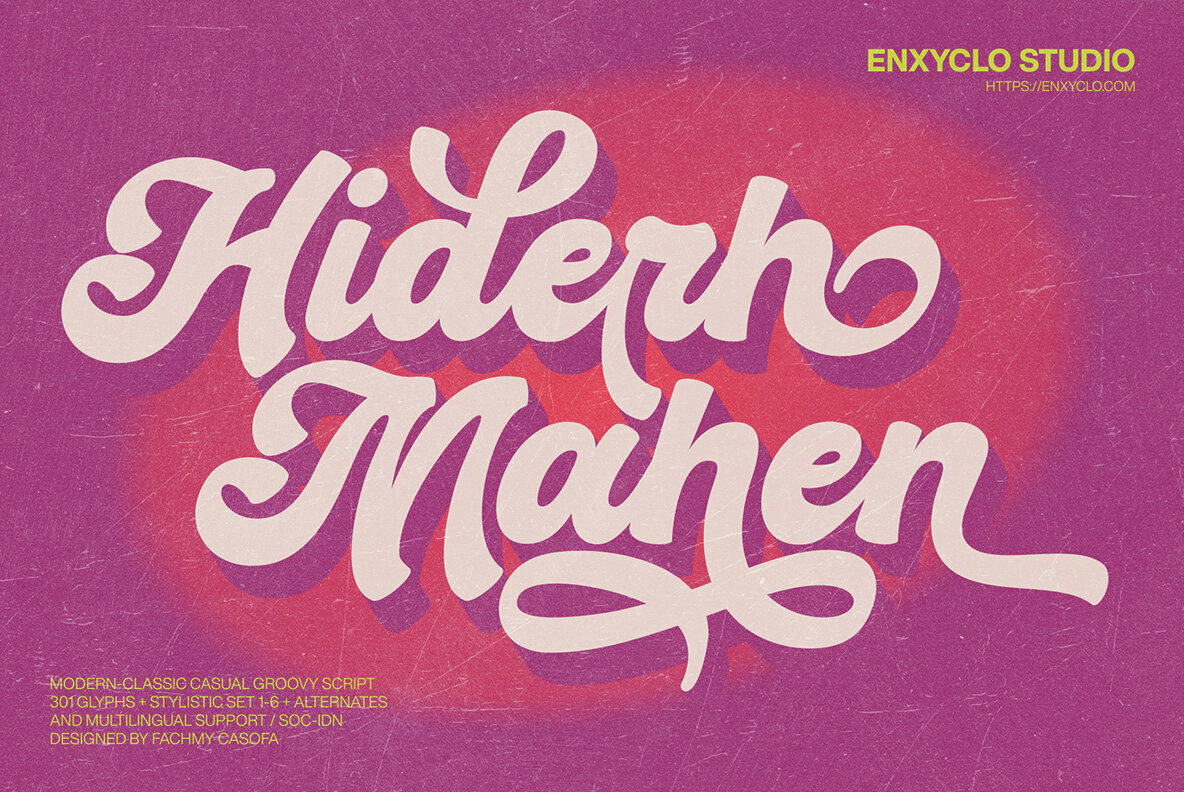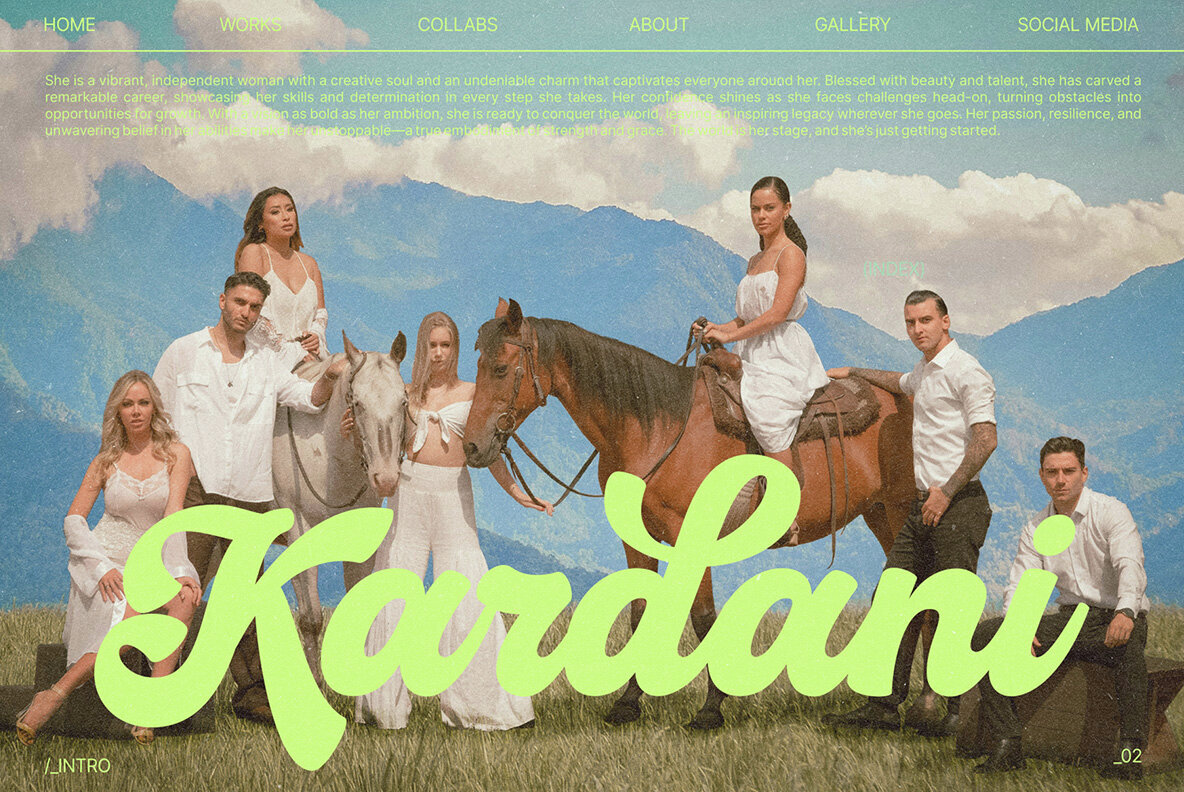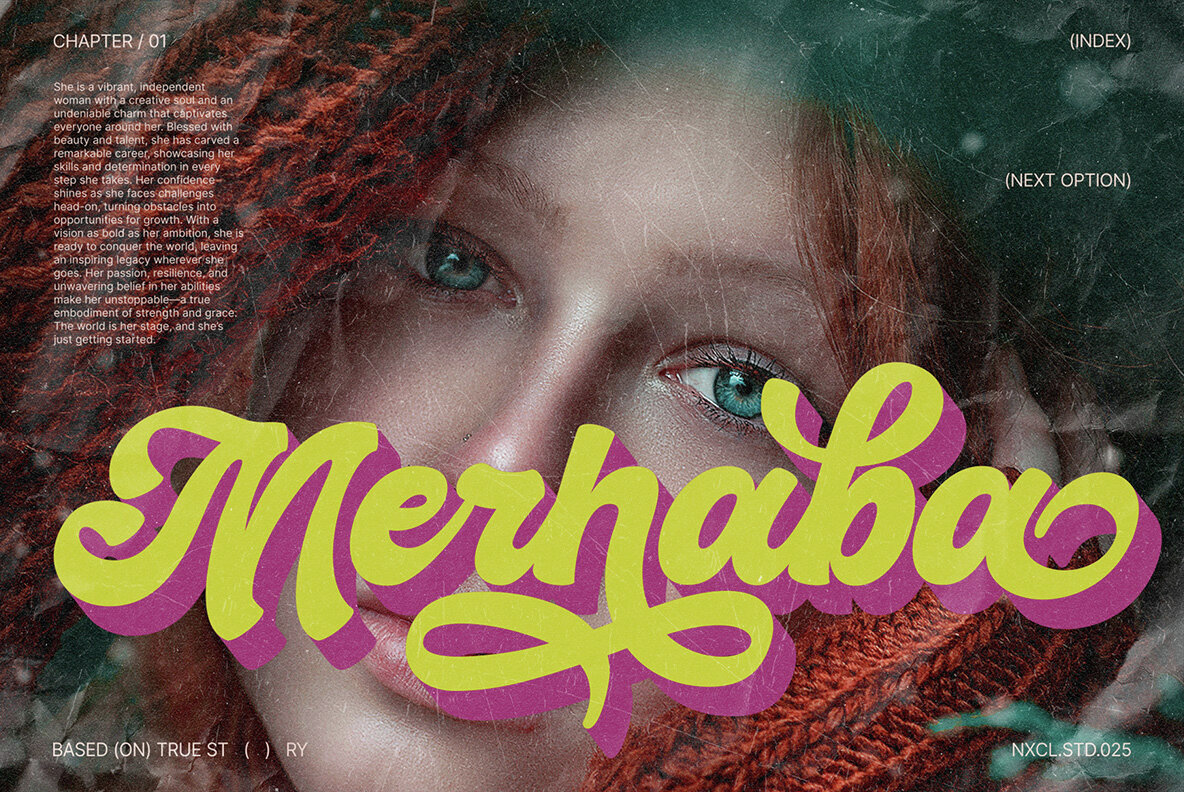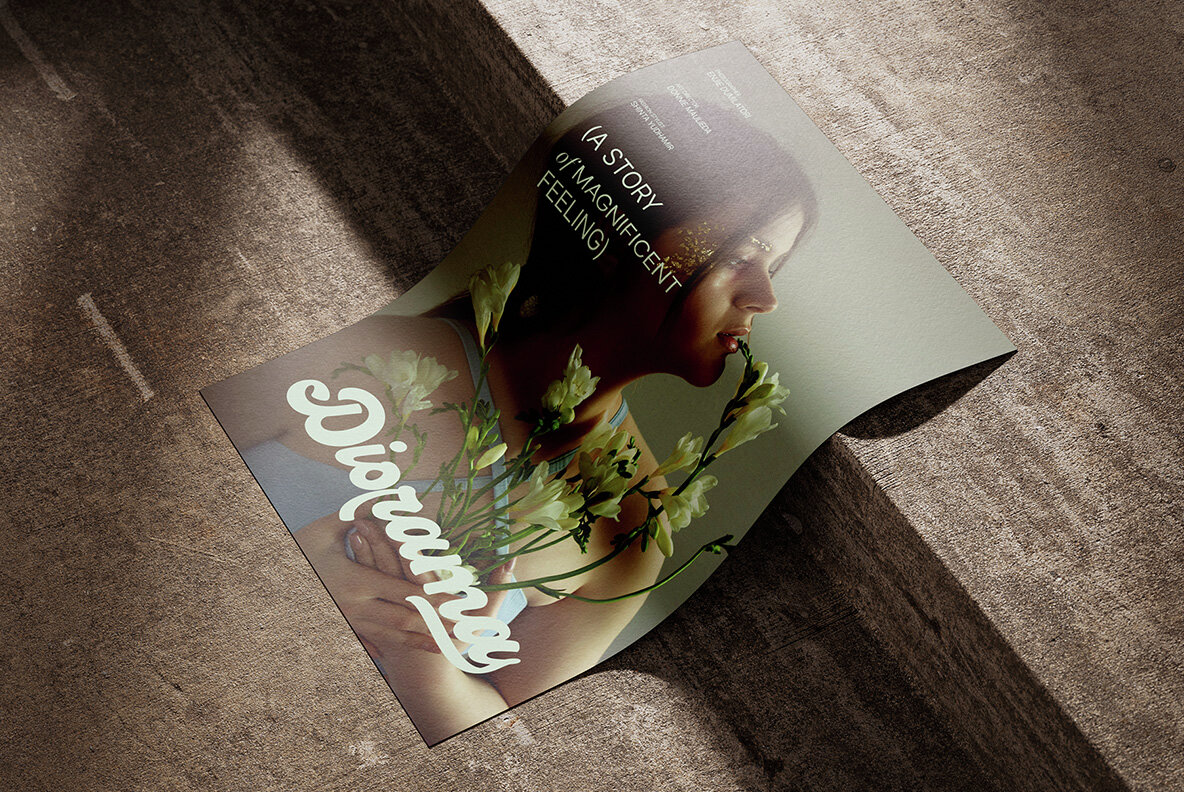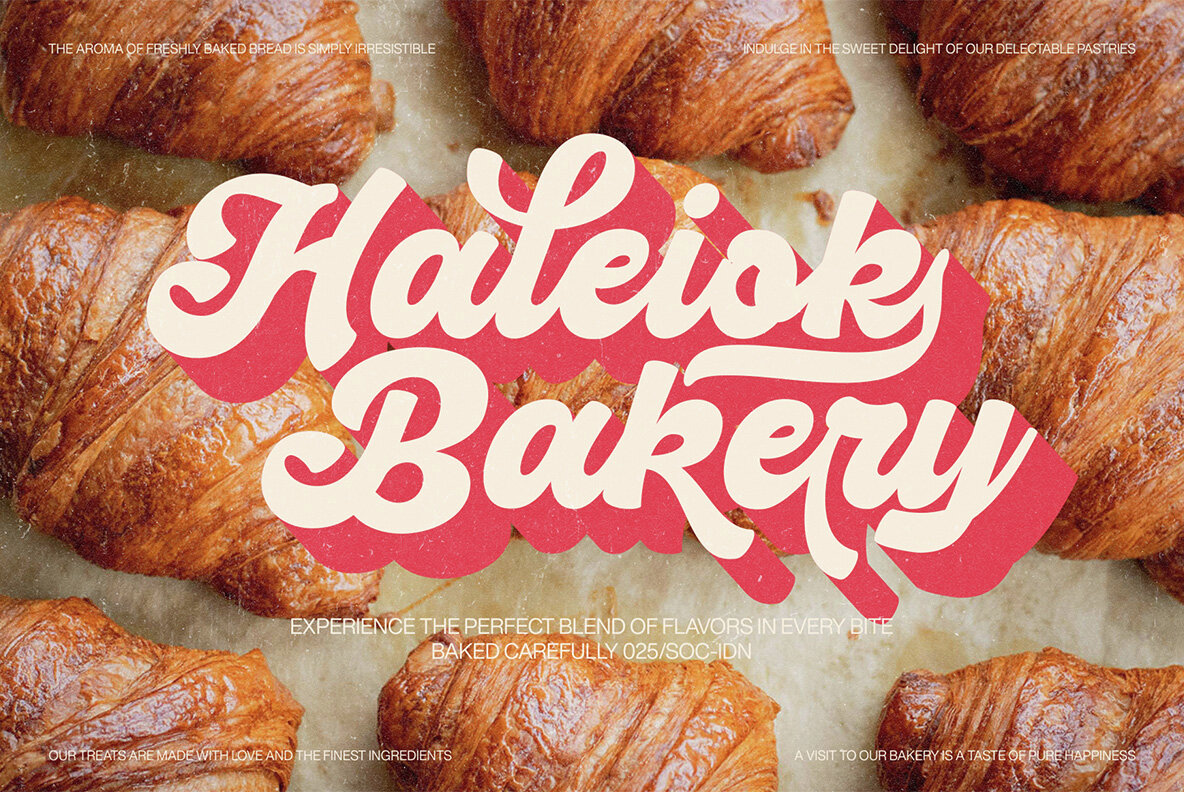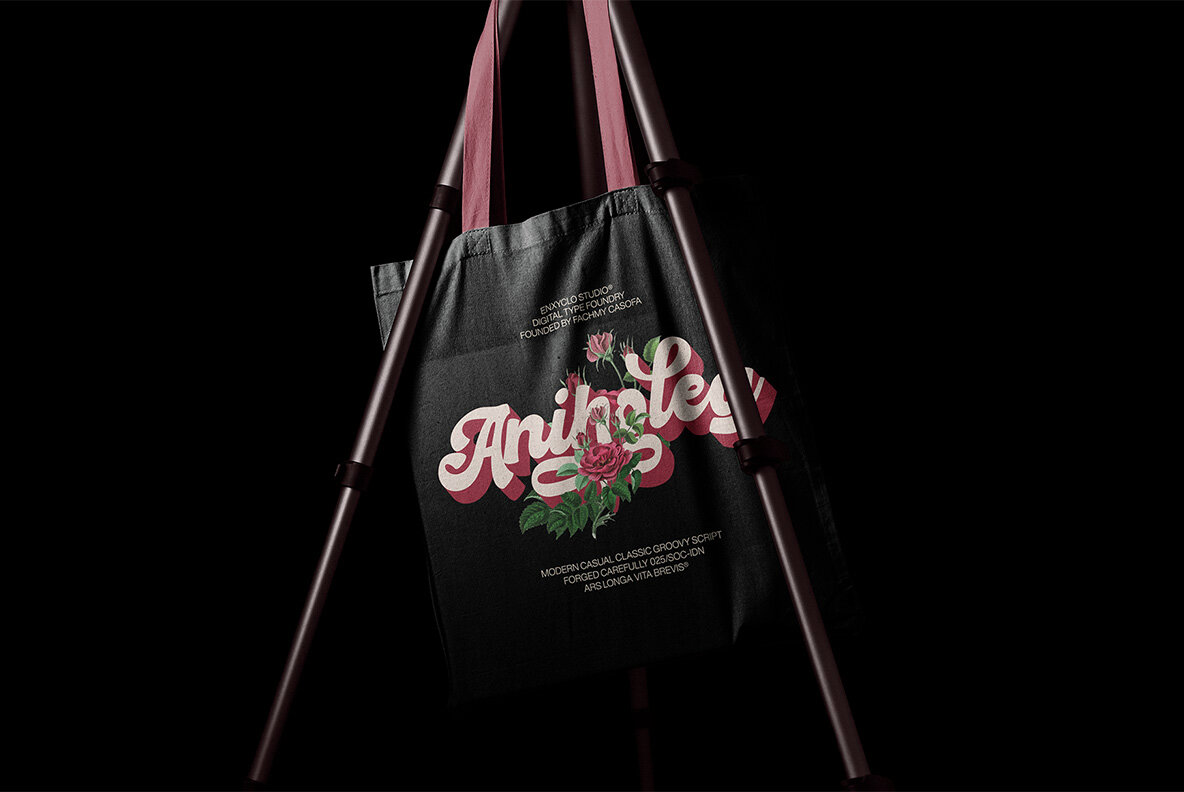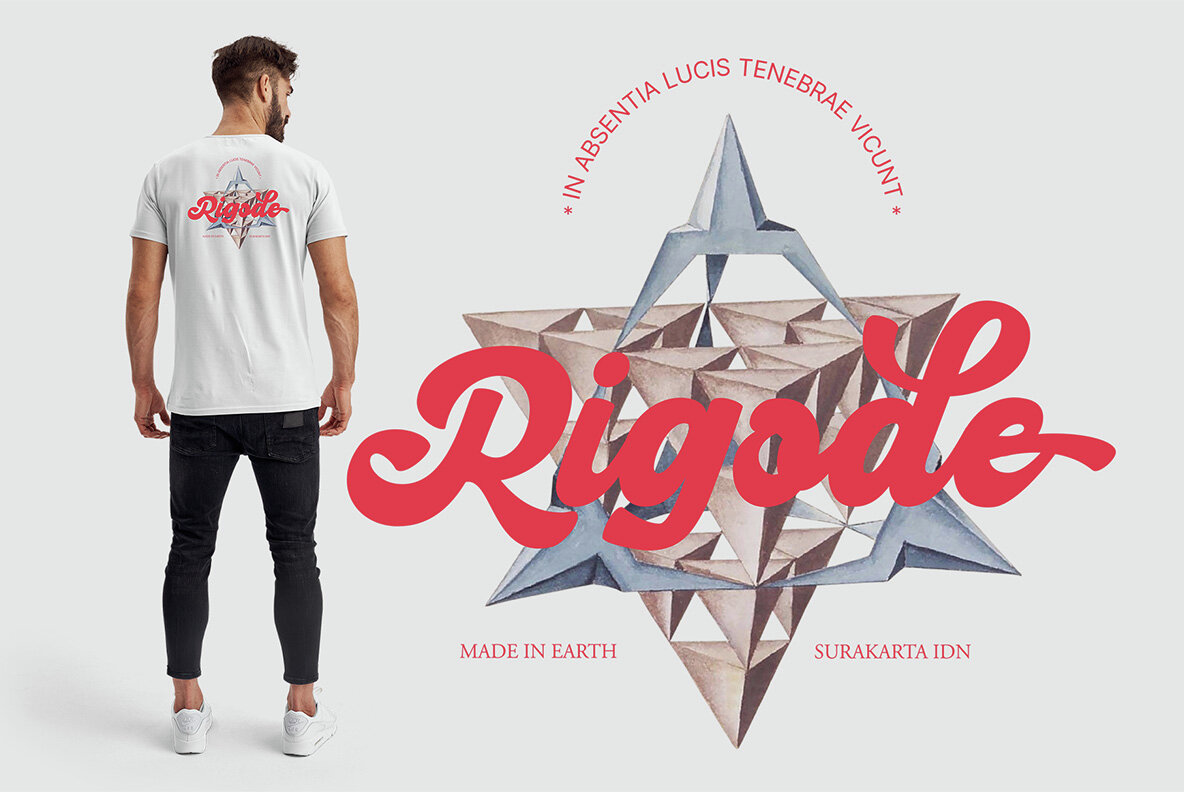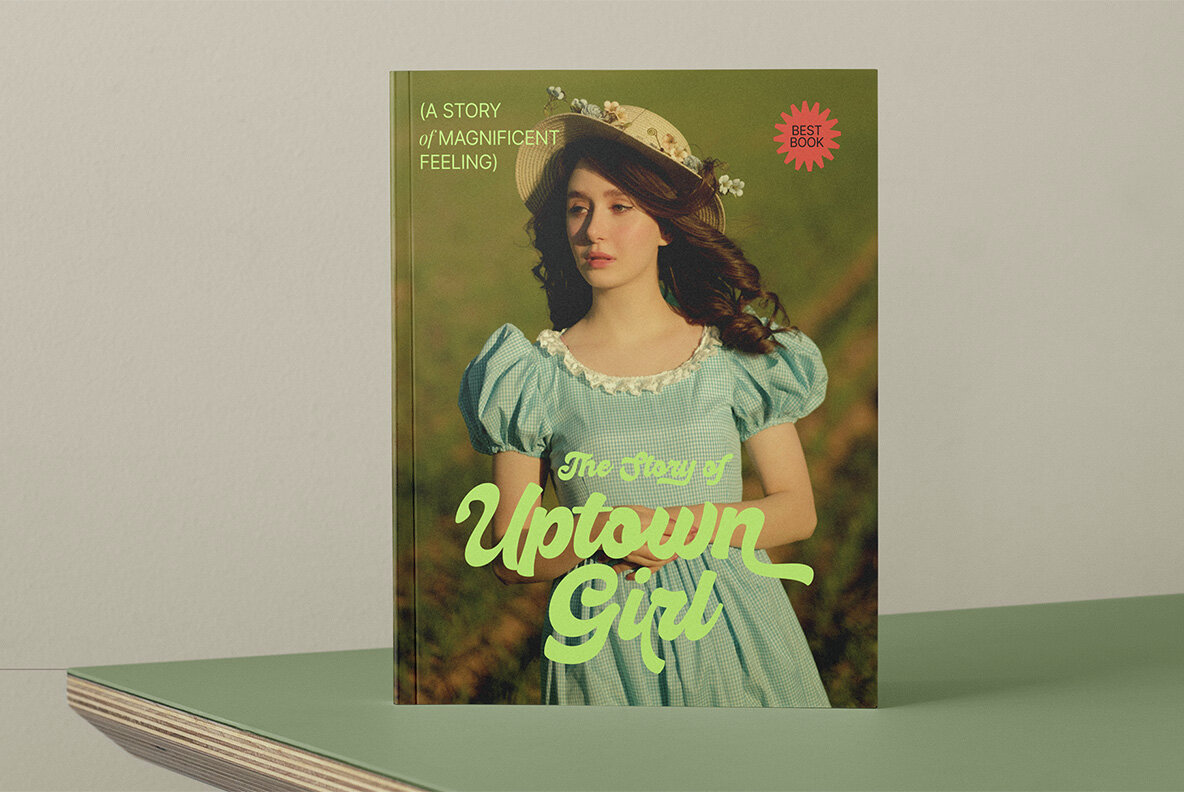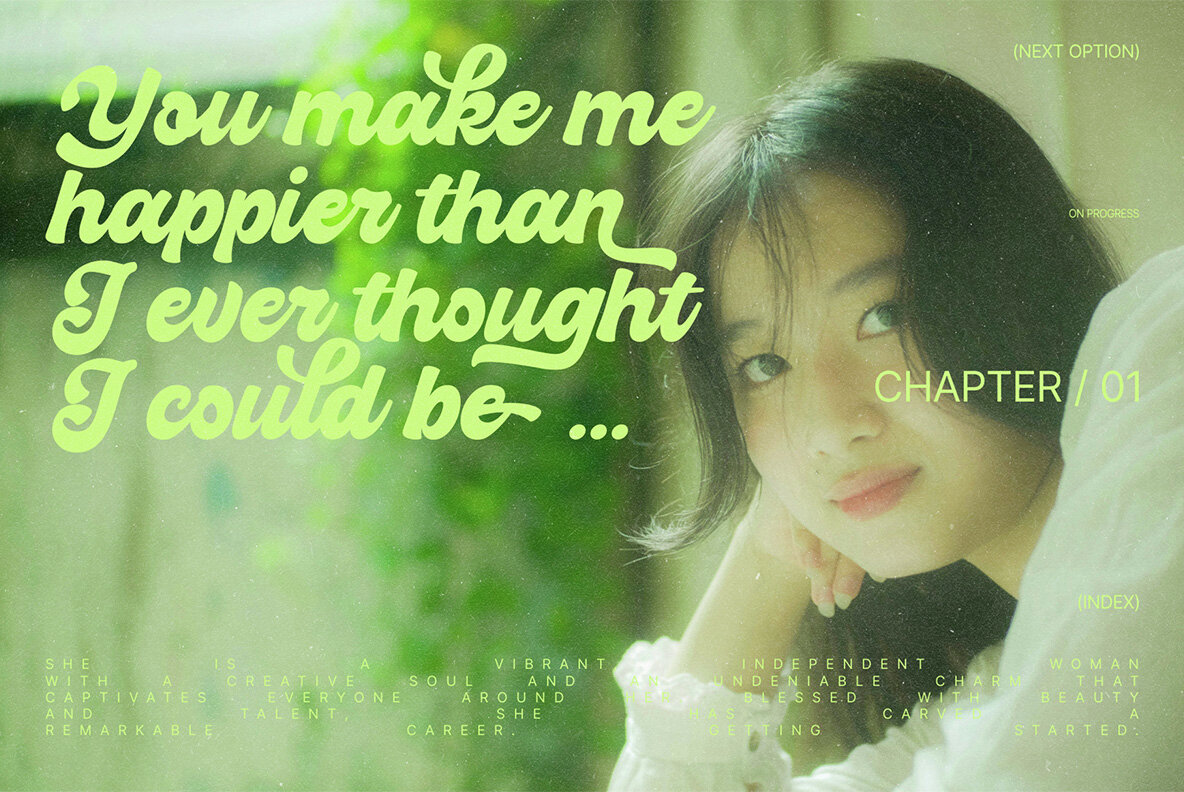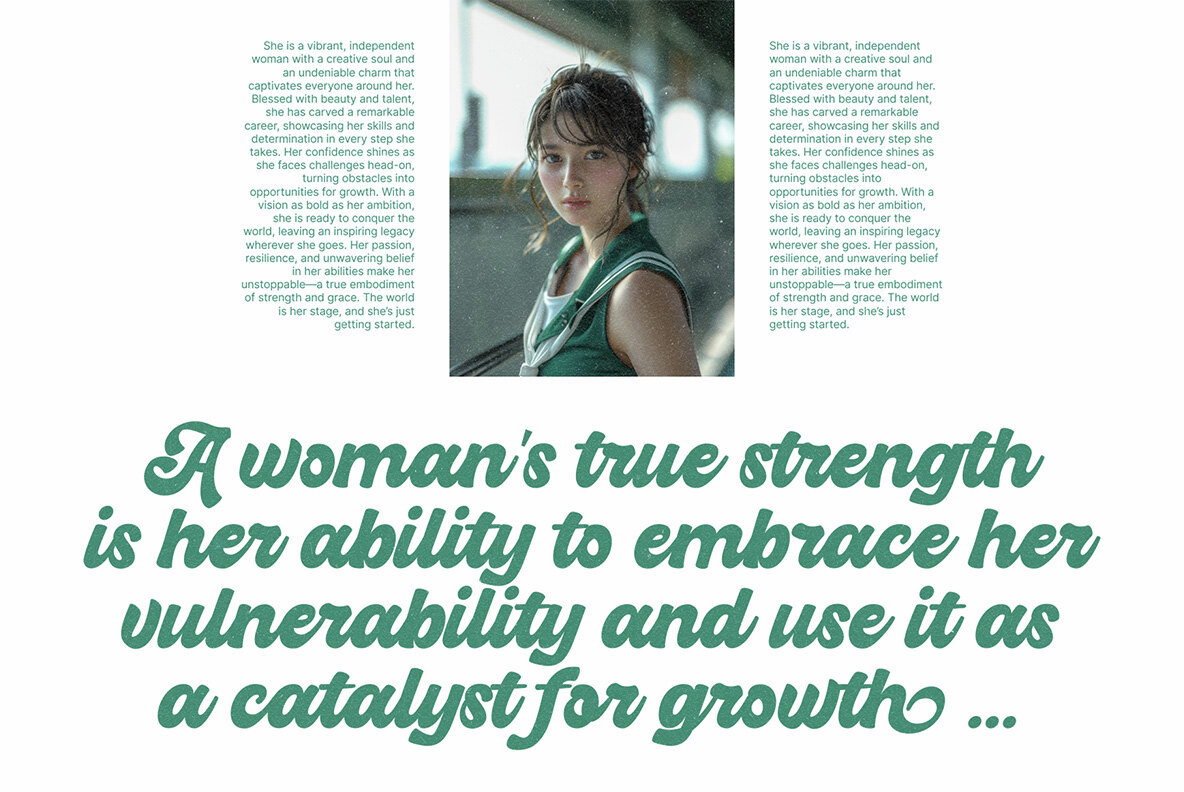
Hiderh Mahen Font
Hiderh Mahen Regular
Hiderh Mahen is a modern classic script that seamlessly combines groovy retro charm with contemporary flair. Its bold, elegant curves and unique variations make it an ideal choice for any creative endeavor. Designed for versatility in both large and small sizes, Hiderh Mahen excels in headlines, digital ads, magazines, websites, posters, branding, and logos. This font enriches any design project, offering a distinctive touch that sets it apart in your typeface collection.
Key Features:
- 301 Unique Glyphs
- Stylistic Sets 1-6
- Alternates & Ligatures
- Uppercase & Lowercase Letters
- Numerals, Punctuation & Symbols